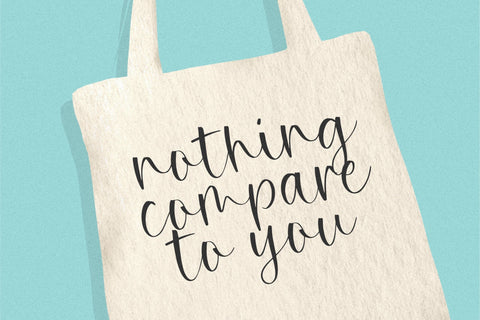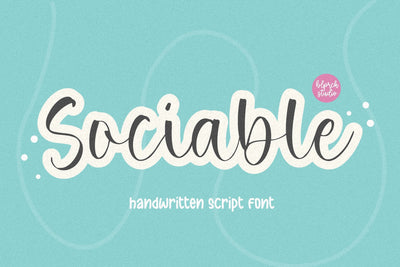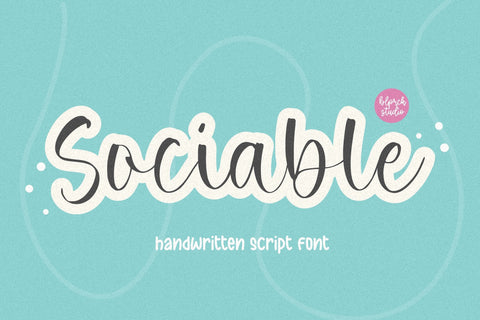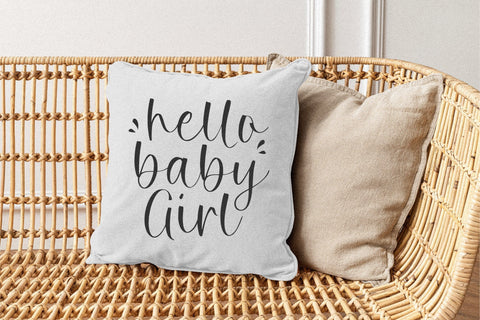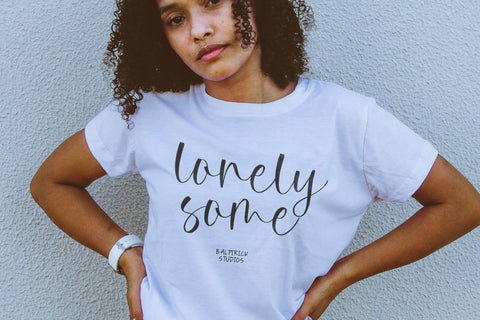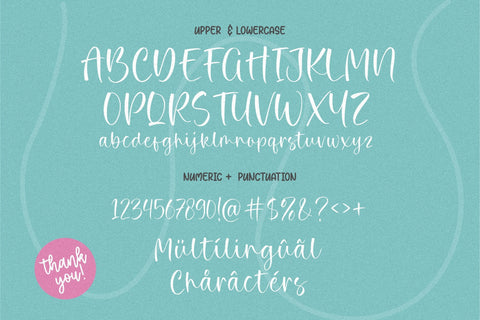
Sociable Font
Sociable is a Handwritten Script Font.
Whether you’re using it for crafts, digital design, presentations, or making greeting cards, this font has the potential to become your favorite go-to font, no matter the occasion!